Fonts Have Feelings, Too
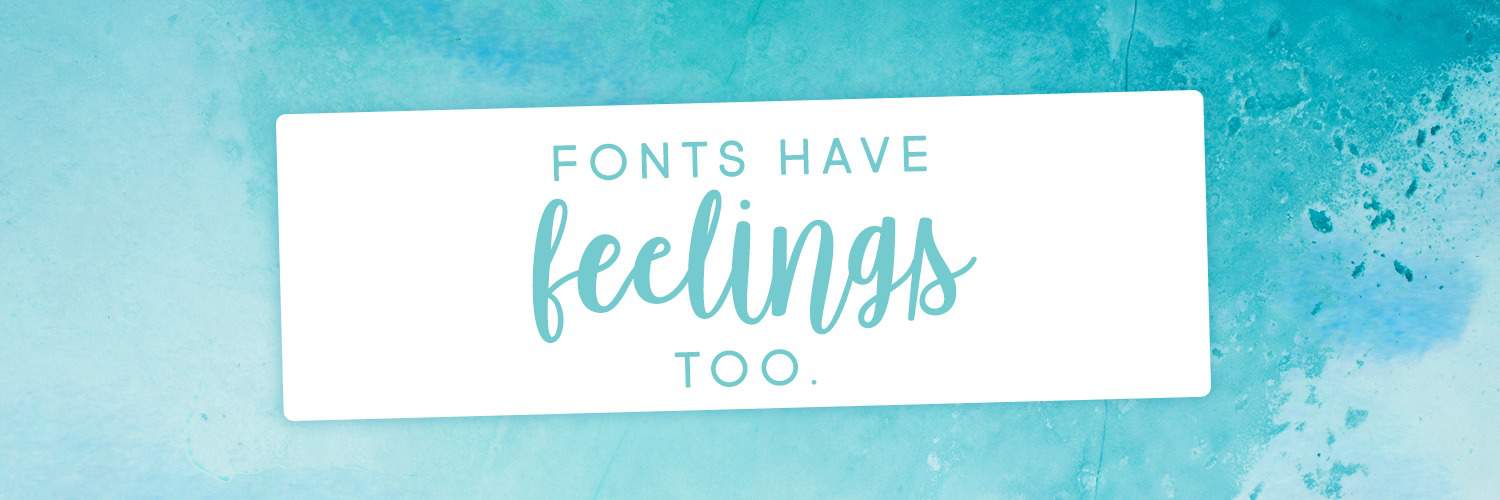
I might be one of the worst at writing descriptions for fonts. For a long time I just didn’t do it, because that felt like actual work, and let’s be honest, I am not about that life. 😉 However, for the last few years Michael has been forcing me to think about it more and more, until now… I have radically matured and I just make him do it. I think part of the reason I hate it so much is that I don’t really think of fonts in a typical way, as simply a serif or a script. Fonts have feelings, after all. I don’t always create the same number of glyphs for each font. Sometimes I don’t even have a plan for what my font will look like when I start.
Sometimes I literally just turn on some music and start drawing letters that I think that music feels like. (Lots of Owl City went into the making of Submarine Beach.) Sometimes I listen to audio books and try to create something that would work for that setting. (I was listening to a book about a hedge witch while creating Hazel Grace.)
I think this (for me) is because I think of lettering more in terms of emotion. It’s less about the type of font I’m trying to create, and more about the feeling I’m trying to convey. I think this shows in an article I was interviewed for in 2014 about font names and how I choose them:
For me, harnessing emotion is essential for good use of typography in design. That’s why when I actually do come up with write-ups for my work, they often include words that are not typically used in font descriptions, like “recklessly optimistic” (Little Miracles), “angsty” (Heartwrecked), or “wistful” (Beautiful Things). Wouldn’t it be great if we could search for fonts not just by their subcategory, but by their moods? (Casual and cantankerous, thank you very much.) (Also, awesome new search awesomeness coming soon…)
Failing to evoke the appropriate attitude and tone is a common mistake I often see in designs. Just because a client loves a font doesn’t guarantee it will mesh well with the identity they’re wanting to create. That said, yes, picking out a font you like is very important, but picking out one that you like and that communicates your message is more important. (And I’m very sorry, but no, Bleeding Cowboys is never going to effectively exemplify your corporate law office.)
Examples
Of course there are the over-the-top examples, such as the famous Fonts Matter image with ‘You’ll Always be Mine’ shown in both a romantic script and a scary scrawl. But that example might be too obvious to be of much use.
So I created another. Let’s say there’s a pizza parlour that might be opening soon. I came up with a name and a graphic that stay the same so we can focus squarely on the font. (Okay, okay, okay, so I may have lengthened or shortened the line a tad on each to better fit each font. I’m sorry! I couldn’t ignore my obsessive tendencies, but let it go, yeesh…)
So, the fonts. I used, in order of example, The Brooklyn Smooth Bold, Poundcake, and Hodgepodgery Outline. None of these are necessarily better or worse than the others. But they each promote an image of a different kind of pizza place. Is it classy? A place for kids? Or just your everyday casual kind of pizza place? Personally I like the Poundcake example (the middle one) the most, but if my brand is aimed at high end pizza, It might not be the right choice.
I see this often when someone is just learning to design. They know Papyrus and Times New Roman are out of the running, but are still just trying to use something new and different or something that stands out. But just because something is new, or screams ‘Look at Me!’, it isn’t necessarily better. Know your audience (or who you want your audience to be), and cater to them. So consider not only your client, but your client’s clients. If you know what I mean.
For example, when I’m working on something more upscale, I’m looking for symmetry and clean lines. Or, if, instead, my project needs a more accessible, down-to-earth feel, I often go with something hand-drawn, or at least slightly imperfect. If you’re not sure what type of font conveys the feel you’re looking for, do a little market research. Look at competitors with a good brand. What are they doing? Or branch out even more. Look at companies in entirely different markets that cater to the same type of audience you’re trying to reach. I’m not saying to find them and steal their fonts, but you can use these real world examples to find the type of fonts that might work well for you.
The Takeaway
So… my suggestion? When you start your project, don’t start with pictures, but with words. I didn’t do this for years and ended up having to go round after round with clients to get them what they wanted. Now I start with a questionnaire. My first one was 5 questions and now it has grown to almost 2 pages. Michael will even apologize for the length when we give it to a potential client. By far one of the most important sections is where we ask them to fill in what feelings they have when they think of their company. Time after time, this is how I see into their vision and separate it from my own ideas. Sometimes it helps to create a fictional person that you are aiming the project at. Let’s call him Jimmy. Jimmy is 8 years old, he likes school, video games, and thinks his older sister has cooties. So the question is… which pizza do you think Jimmy wants tonight? Let us know in the comments.